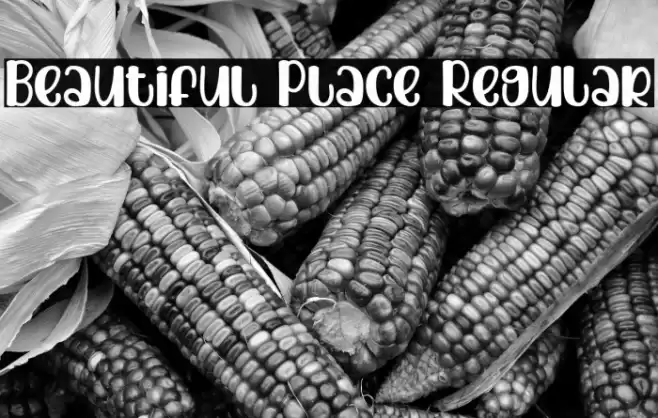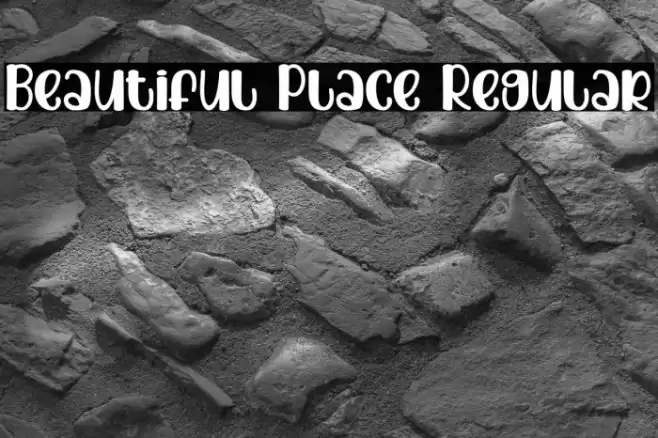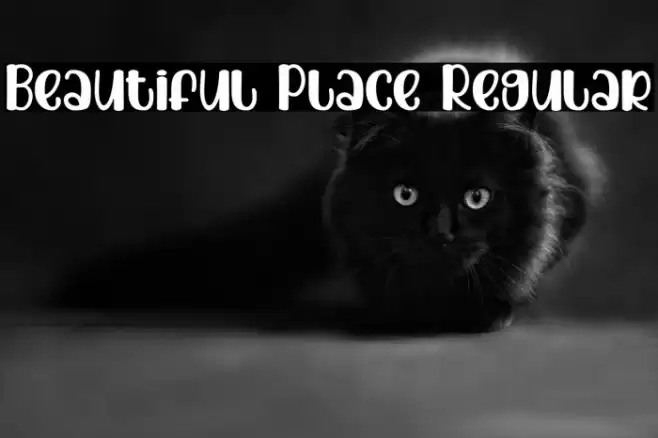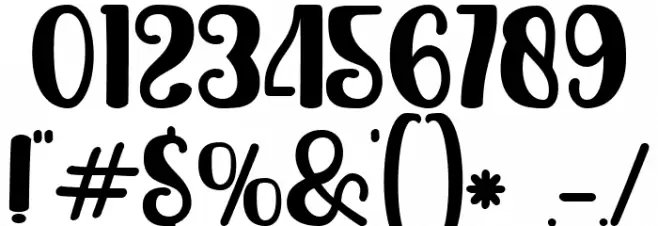
Beautiful Place Regular Font
Beautiful Place Regular Description
This font features a playful and bold style with rounded edges and a slightly whimsical appearance. The characters are thick and have a consistent weight throughout, giving them a strong presence on the page. The uppercase and lowercase letters maintain a uniform height, contributing to a cohesive look. The numerals and special characters are designed to match the overall style, ensuring a harmonious appearance across different types of text. The font's unique character shapes, such as the looped 'g' and the curved 'y', add to its charm and make it suitable for creative and fun projects.
A playful, bold font with rounded edges and a whimsical style from Regular fonts.
- Overall Style: Playful, Whimsical